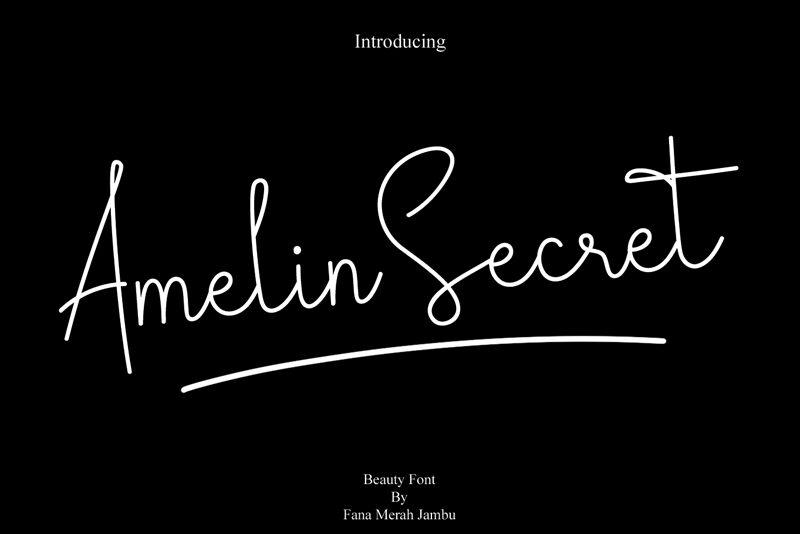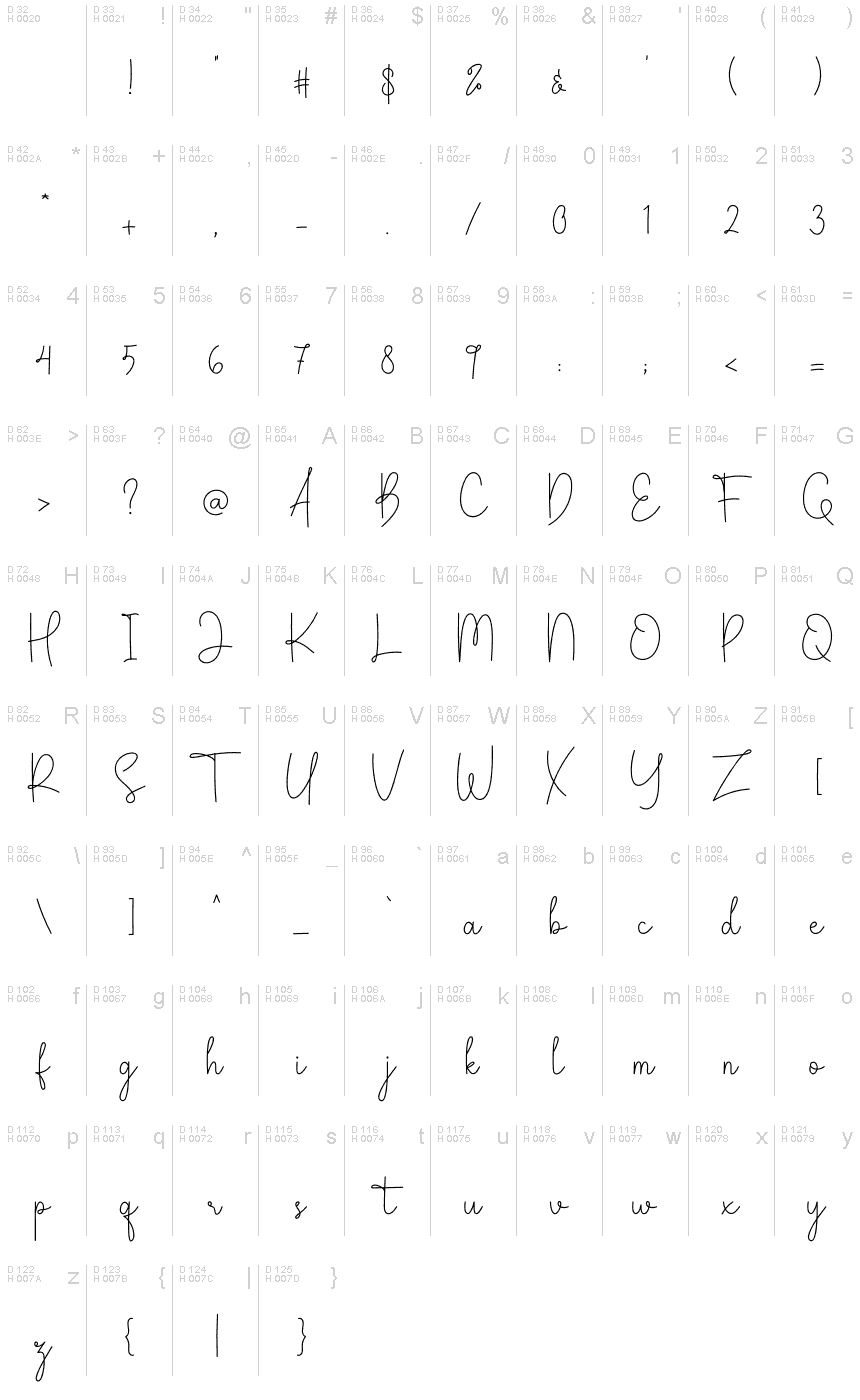
Amelin Secret
Amelin Secret is a captivating handwritten font designed by Erik Studio. With its extra-light weight, it exudes elegance and finesse, making it perfect for projects that require a delicate touch. Its organic curves and flowing strokes give off an air of effortless sophistication, making it ideal for creating romantic wedding invitations or designing beautiful stationery. This font is also suitable for branding projects that require a personal touch, such as boutique businesses or handmade product labels. Amelin Secret is the perfect choice for anyone looking to add a touch of refined charm to their designs.